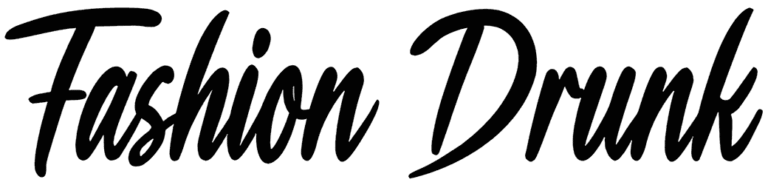
Lovely Valentine Font
Designed byThirtypath
You can save a considerable amount of time and energy by using a unique holiday font such as Lovely Valentine in designing graphic content such as packaging, social media posts, personal blogs, logos, and banners.
This Valentine font is the result of adding a little bit of elegance and creativity to a handwritten script font, so it leads to a sense of personalization, romance, kindness, and dynamic. It is better to overlook the lack of numbers and pick it up.